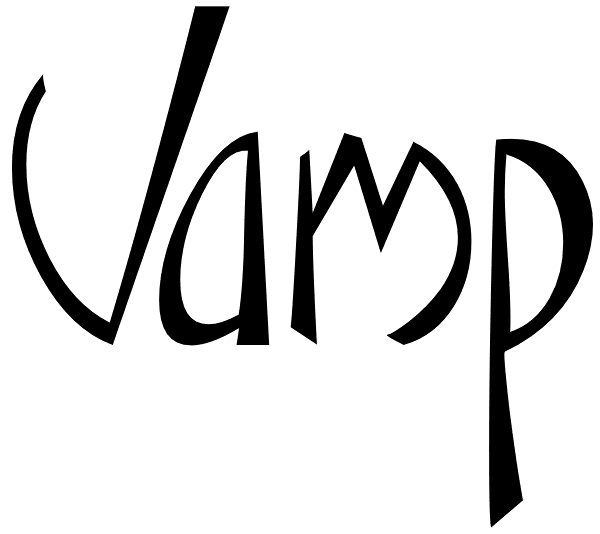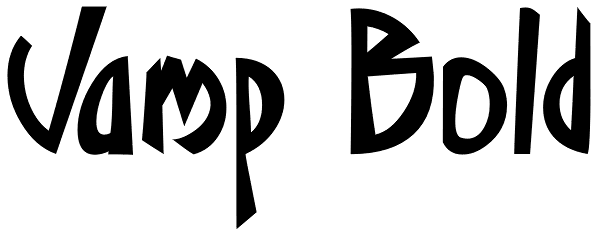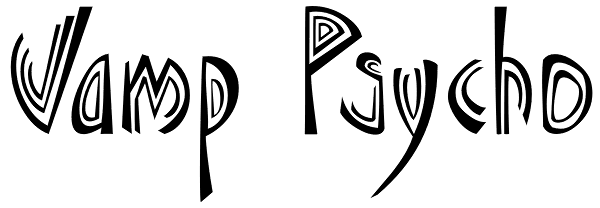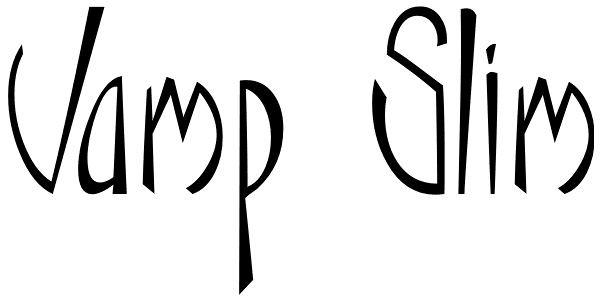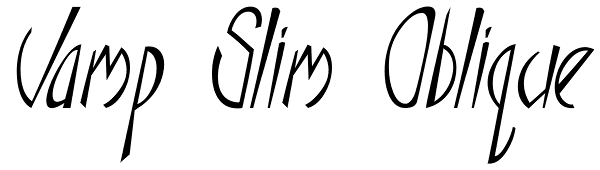
Vamp
A quintet of remorseless homewreckers, each member of the Vamp family contains hypnotic dingbats to lure you into their web. The Vamp family consists of the bewitching Vamp, the bigger, brasher Vamp Bold, the dangerous, psychedelic Psycho Vamp, as...
Vamp
Vamp Bold
Vamp Psycho
Vamp Slim
Vamp Slim Oblique